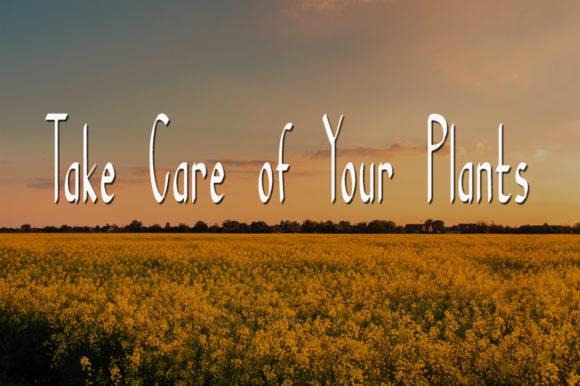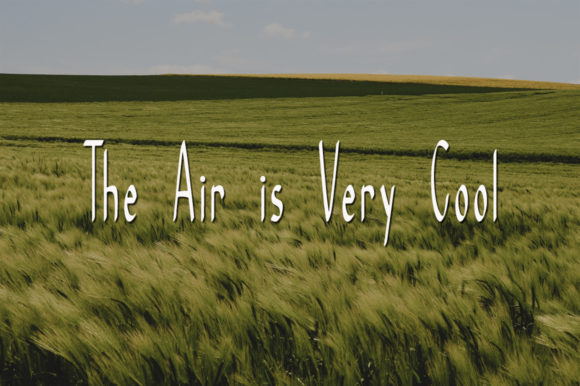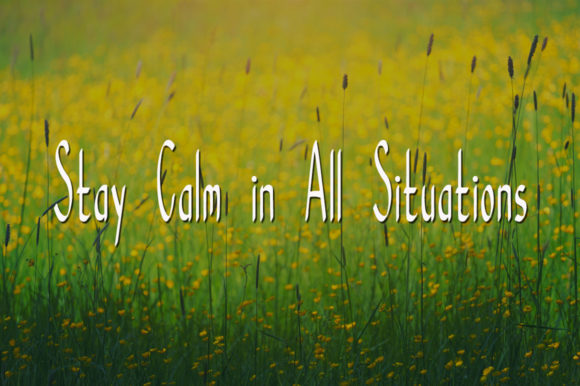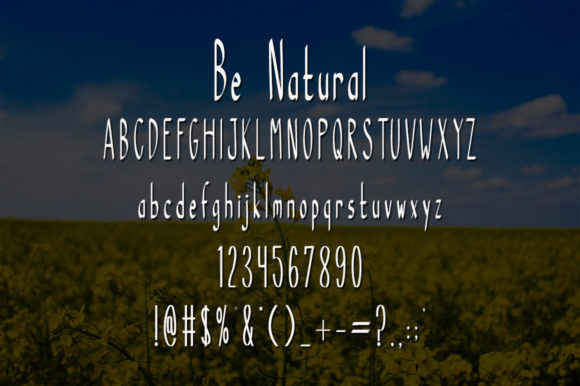
The Quest for the Perfect Font: How Be Natural Stole My Heart
I’ll never forget the frustration of working on a project, hours poured into every detail, and yet, something felt off. The culprit? A font that just didn’t cut it. I was on a mission to find the perfect match, and that’s when I stumbled upon Be Natural. This minimal and neat handwritten font has been a game-changer for me, and I’m excited to share my experience with you!
An Honest Review of Be Natural
- ✨ Its versatility – Be Natural can easily be matched to an incredibly large set of projects, from branding and packaging to social media graphics and more!
- ✅ The clean and minimalist design makes it perfect for modern and sophisticated designs.
- 💫 It has a friendly and approachable feel, making it ideal for designs that require a personal touch.
While Be Natural is an amazing font, there are a few things to keep in mind:
- ⚠️ It may not be the best fit for very formal or traditional designs, as it has a relatively casual feel.
- 🤔 Some users may find that the font is a bit too simple or lacking in personality, but I believe this is part of its charm.
Be Natural supports OpenType features, which can elevate your designs to the next level:
The Story Behind Be Natural
Be Natural was designed with the intention of creating a font that feels both modern and approachable. The designer aimed to craft a clean and minimalist font that can be used in a wide range of projects, from branding and packaging to digital media. The result is a font that feels friendly, elegant, and versatile.
Q: What type of projects is Be Natural best suited for?
A: Be Natural is an incredibly versatile font that can be used in a wide range of projects, including branding, packaging, social media graphics, and more!
Q: Does Be Natural support OpenType features?
A: Yes, Be Natural supports OpenType features, including stylistic alternates and glyphs. You can access these features in compatible software like Adobe Photoshop and Illustrator.